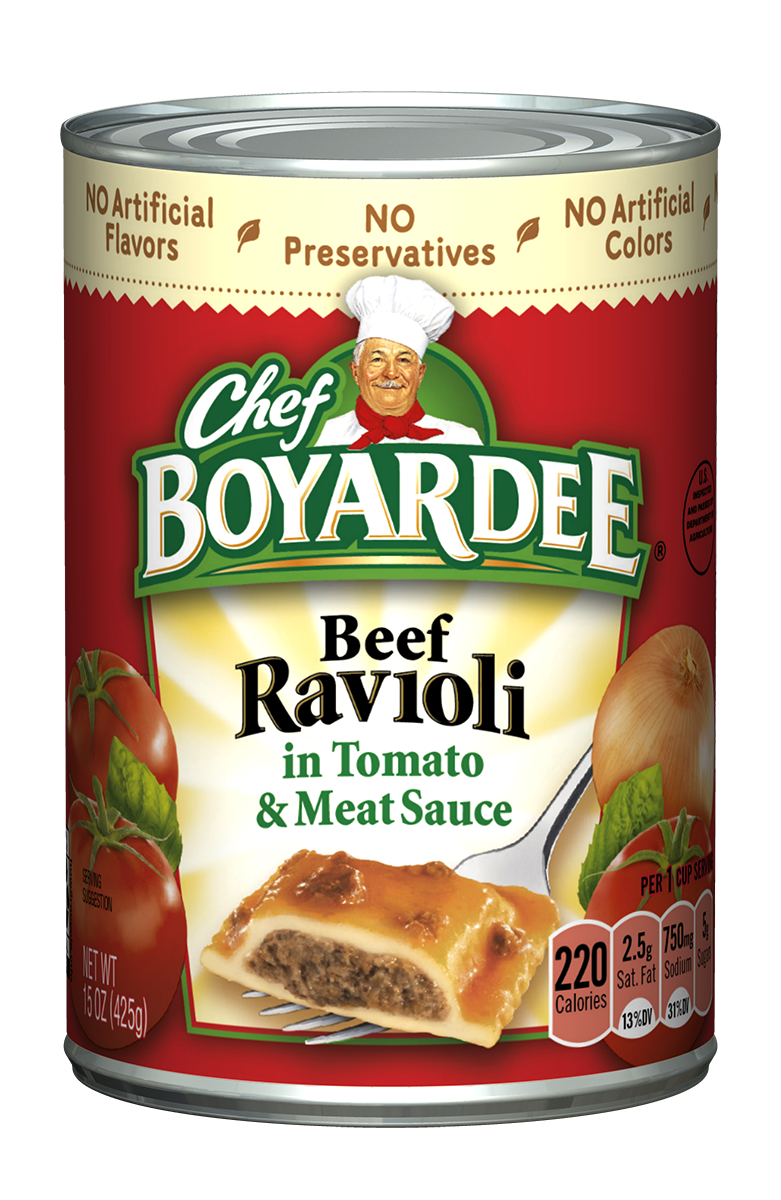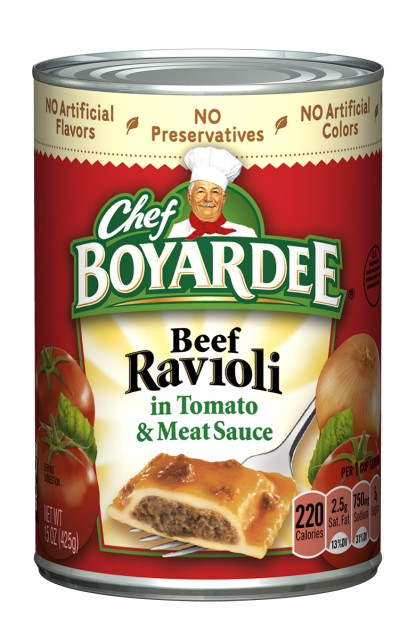
I'm making an edit as a joke for my class. I want to change the "BOYARDEE" on the main green label to something else, but I can't find the exact font it's written in. It seems like bold Friz Quadrata, but Friz Quadrata doesn't have the same R's. Is this a different separate font that I haven't found, or are these accented R's added in manually? I can probably edit them in with Photoshop, but I don't want to if I don't have to. Any help is appreciated, thanks!
Pretty sure it is Friz Quadrata, just altered by the artist.
Anyway, the old version of LHF Kona Bold has got a very similar R.